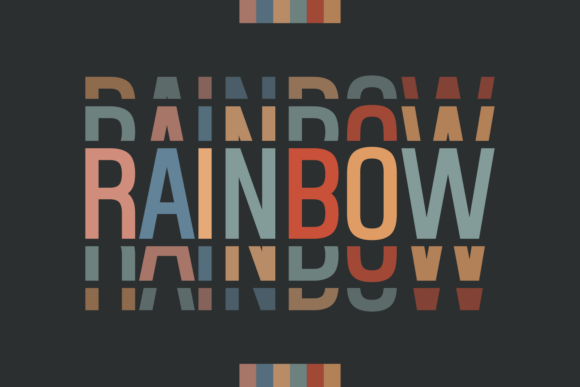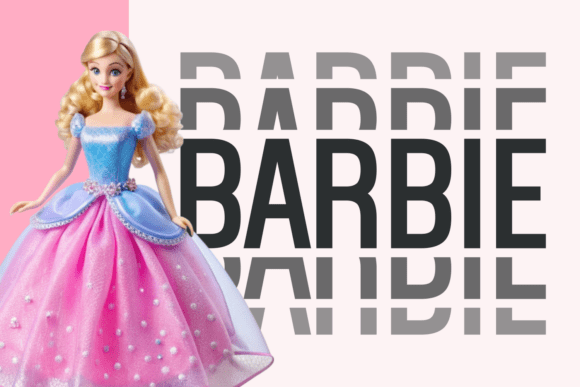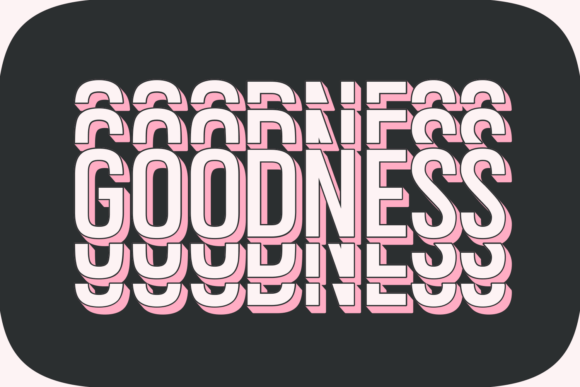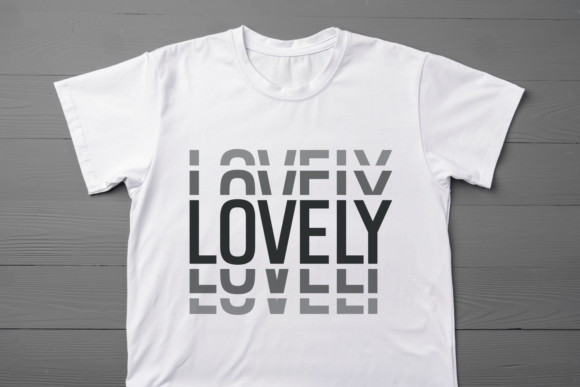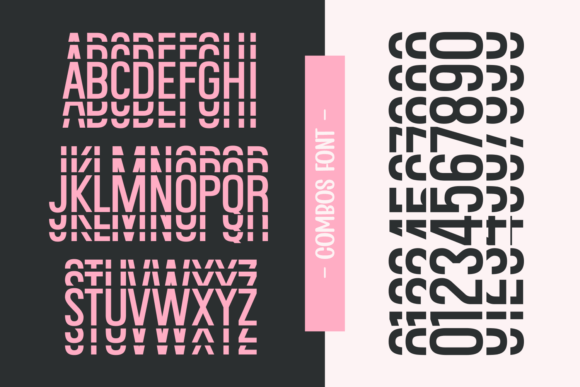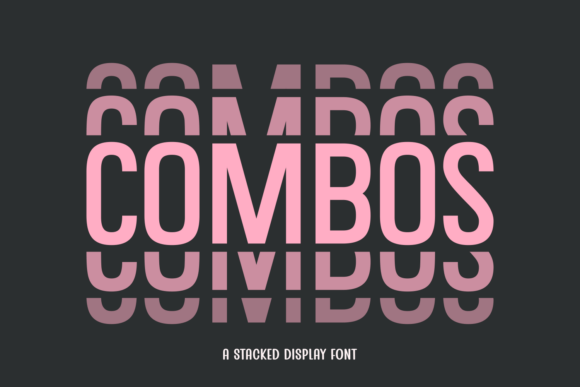
Discover the Irresistible Charm of Combos Font: Elevate Your Designs with Whimsical Elegance
Are you on the hunt for a font that can instantly add a dash of fun, sweetness, and sophistication to your designs? Look no further than the Combos Font, a unique and charming typeface that’s sure to captivate your audience. With its distinctive stacking style, this font is perfect for designers and crafters who want to infuse their projects with a touch of whimsical nostalgia and effortless style.
The Unique Stacking Style of Combos Font
What sets Combos Font apart from other fonts is its irresistible stacking style, which gives it a playful and eye-catching appeal. This unique feature allows the font to stand out in any design, making it perfect for projects that require a dash of personality and flair. Whether you’re working on a logo, branding materials, or social media graphics, Combos Font is sure to make your design pop.
A Font that Conveys a Range of Moods
One of the best things about Combos Font is its versatility. This font can convey a range of moods, from funny and playful to cute and sophisticated. Its soft and sweet appearance makes it perfect for projects that require a gentle touch, such as children’s books, nursery decor, or baby-related products. On the other hand, its bold and whimsical style also makes it suitable for more playful projects, such as posters, flyers, or social media graphics.
Inspired by the Iconic Barbie
Combos Font draws inspiration from the iconic Barbie, exuding effortless style and a dash of whimsical nostalgia. The font’s elegant curves and lines evoke the classic charm of Barbie, making it perfect for designers who want to add a touch of sophistication and glamour to their work. Whether you’re creating a logo, branding materials, or editorial content, Combos Font is sure to bring a touch of timeless elegance to your design.
Perfect for a Range of Projects
Combos Font is a versatile typeface that can be used for a wide range of projects, including:
- Logos and branding materials: Add a touch of whimsy and elegance to your logo and branding materials with Combos Font.
- Social media graphics: Make your social media graphics stand out with the font’s unique stacking style and playful appeal.
- Posters and flyers: Use Combos Font to create eye-catching posters and flyers that are sure to grab attention.
- Children’s books and nursery decor: The font’s soft and sweet appearance makes it perfect for children’s books and nursery decor.
- Editorial content: Add a touch of sophistication and elegance to your editorial content with Combos Font.
Key Features of Combos Font
Here are some key features that make Combos Font a standout typeface:
- Unique stacking style: The font’s distinctive stacking style sets it apart from other fonts.
- Whimsical and elegant: Combos Font exudes effortless style and a dash of whimsical nostalgia.
- Versatile: The font can convey a range of moods, from funny and playful to cute and sophisticated.
- Perfect for a range of projects: Combos Font can be used for logos, social media graphics, posters, flyers, children’s books, and more.
In conclusion, Combos Font is a charming and versatile typeface that’s perfect for designers and crafters who want to add a touch of whimsy and elegance to their work. With its unique stacking style, soft and sweet appearance, and effortless style, this font is sure to captivate your audience and elevate your designs. Whether you’re working on a logo, social media graphics, or editorial content, Combos Font is the perfect choice for adding a dash of sophistication and playfulness to your project.